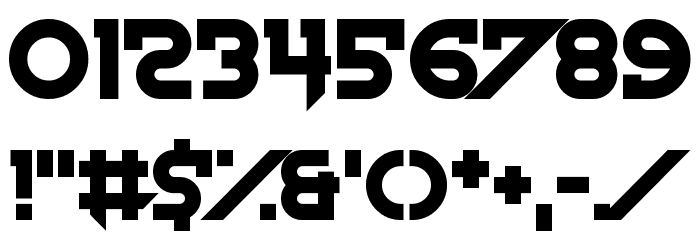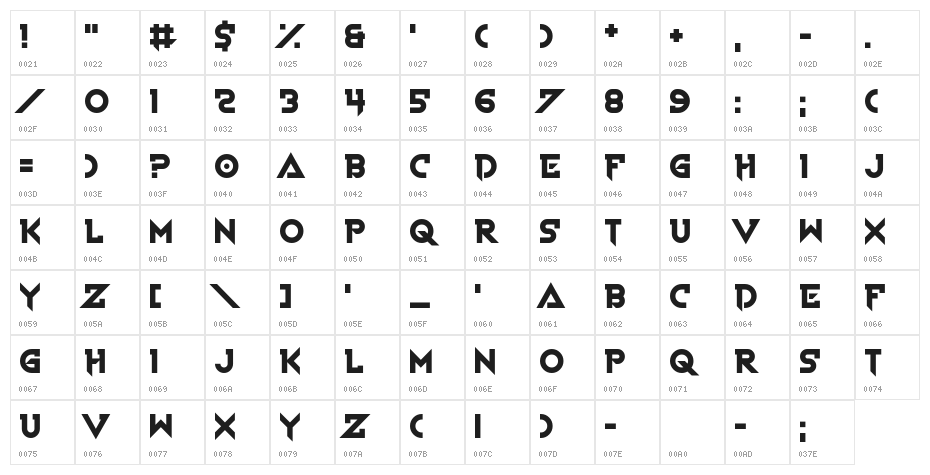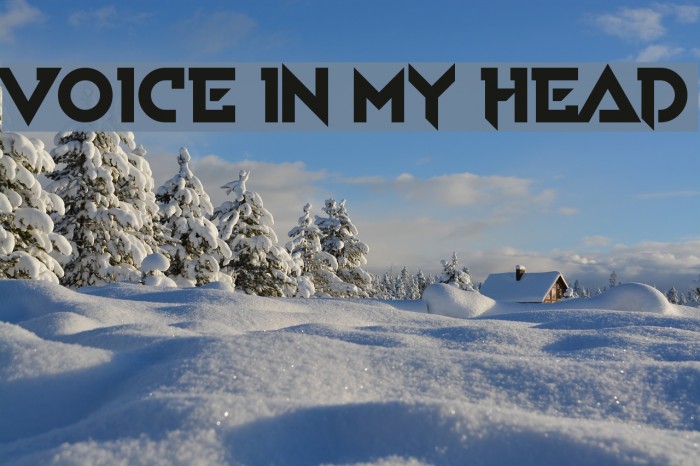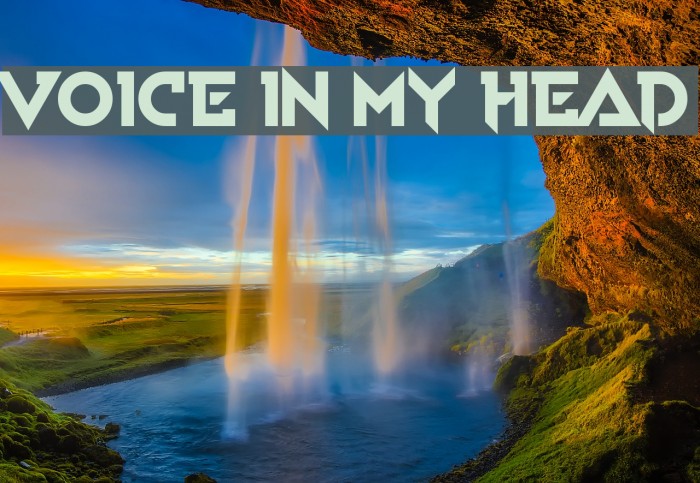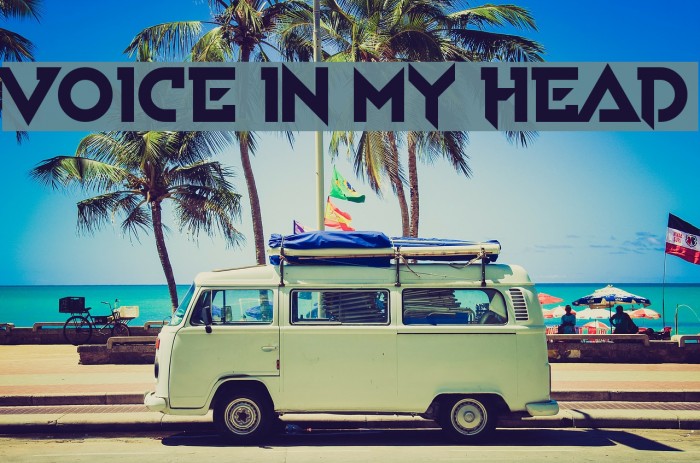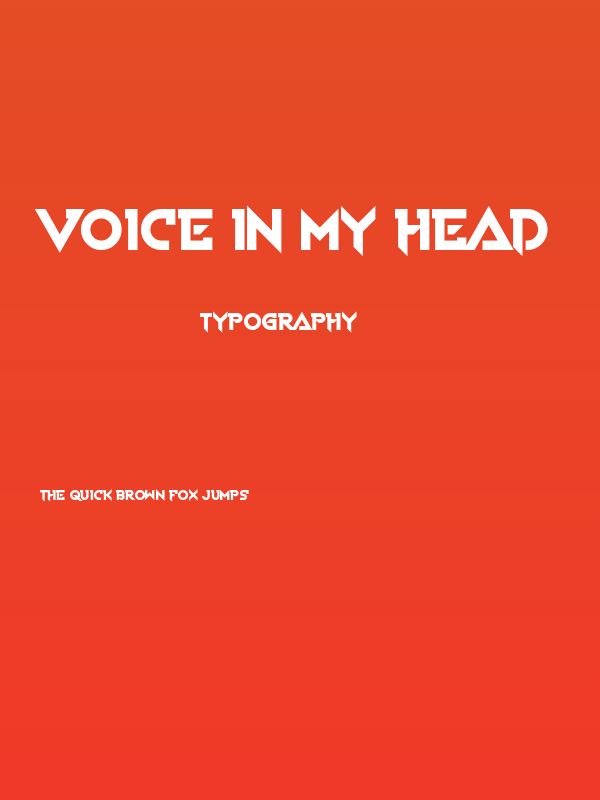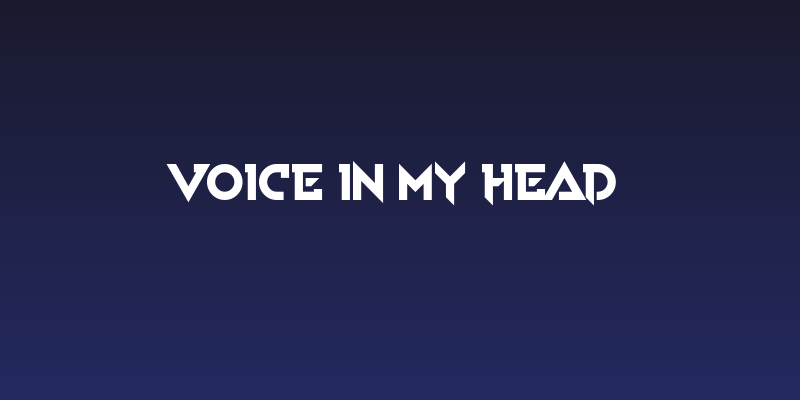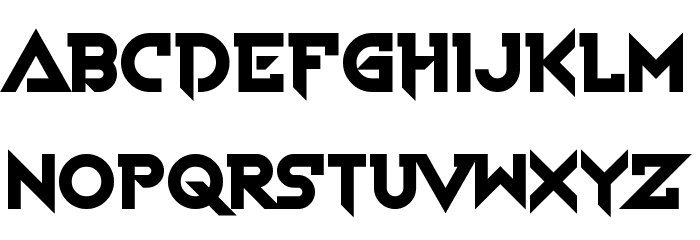
Voice In My Head Font
Voice In My Head Description
This font features a bold and geometric design, characterized by sharp angles and a futuristic aesthetic. The uppercase letters are crafted with a strong emphasis on symmetry and angular cuts, giving them a striking and modern appearance. The numbers and special characters follow the same design principles, ensuring a cohesive look throughout. The font's unique style makes it stand out, with each character displaying a sense of strength and precision. Its boldness and distinctiveness make it suitable for projects that require a strong visual impact.
| Proposed Projects | Ideal for sci-fi themed designs, video game titles, posters, and branding that requires a modern and impactful look. |